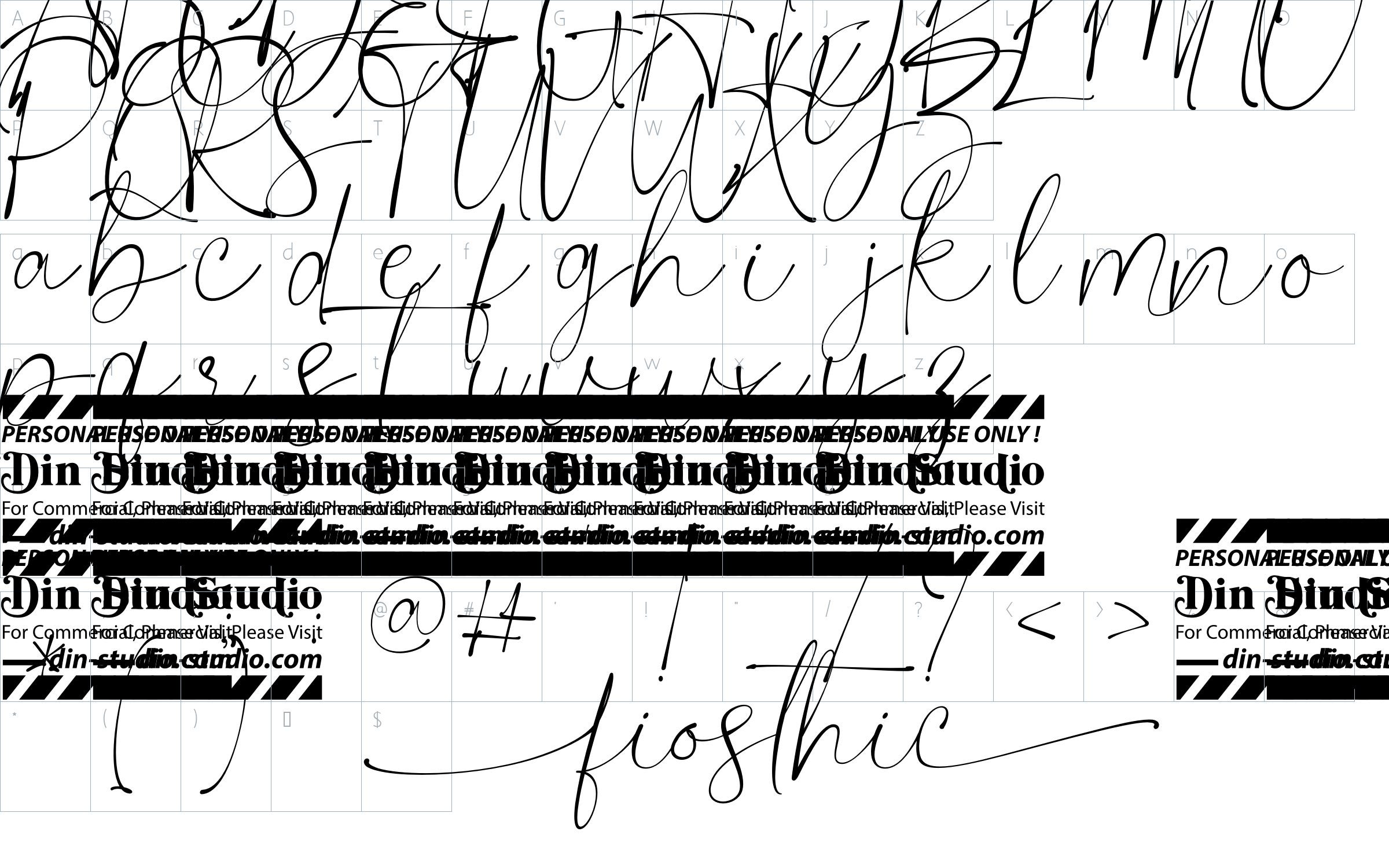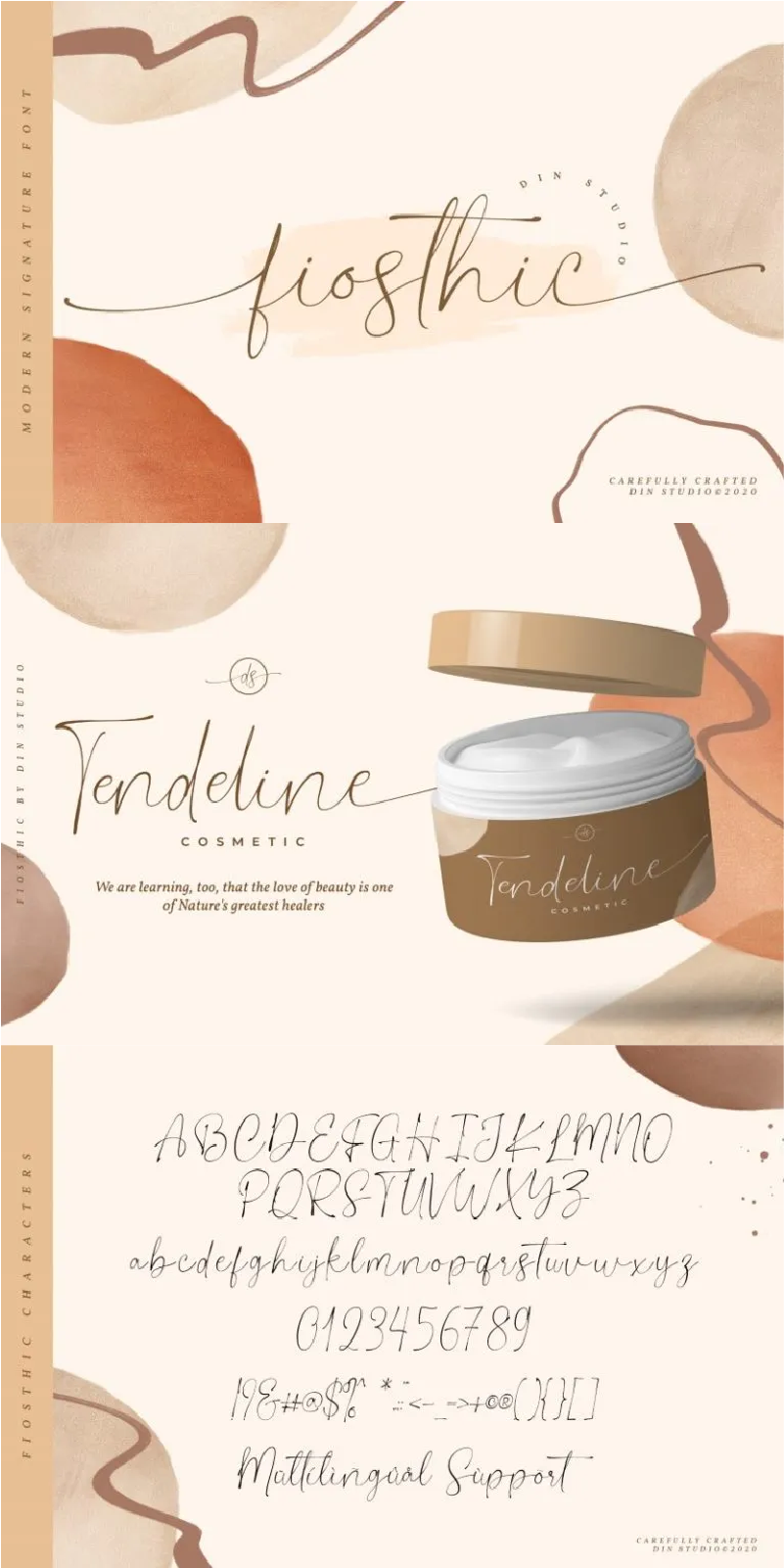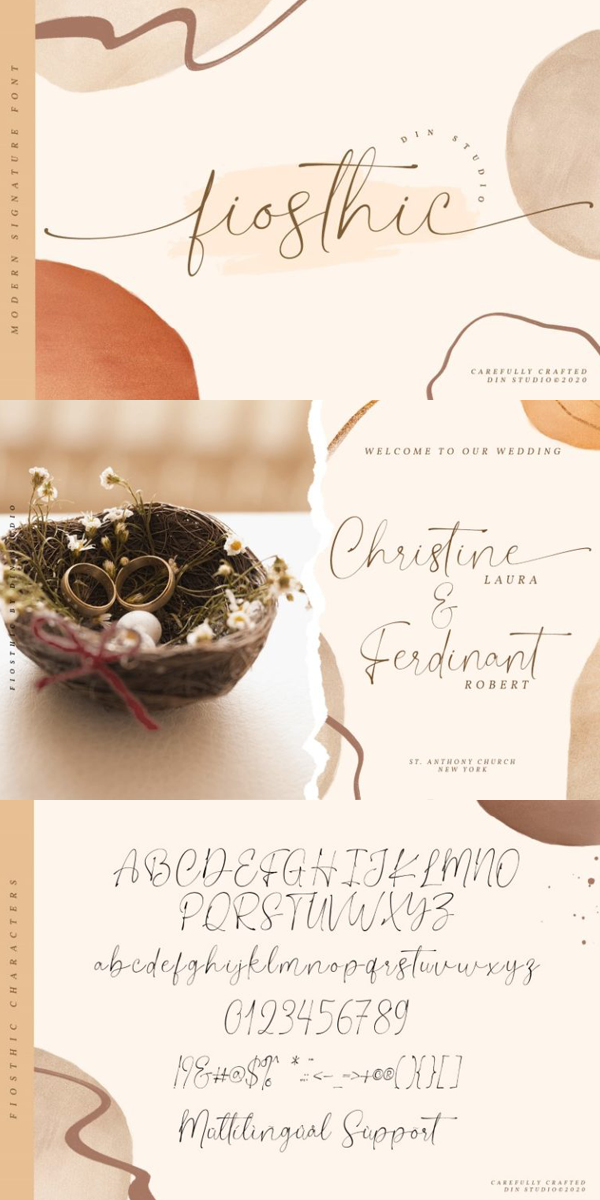
Fiosthic Font
About Fiosthic
Fiosthic is a modern signature font with natural and handwritten style. It brings a elegant and attractive typeface. Made for any professional project branding. It is the best for logos, branding, wedding and quotes. See the previews above to get some inspiration on how you can use them. Happy Designing!
– Stylistic Set
– Beautiful Ligatures